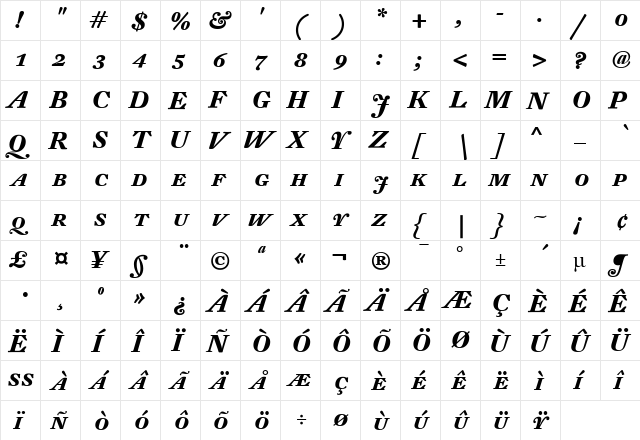
DTLFleischmannT ItalicBold Font Preview
DTLFleischmannT ItalicBold
Design Context for DTLFleischmannT Typeface
DTLFleischmannT is a composed and adaptable typeface that performs quietly and consistently across a wide range of design contexts. The slanted form adds forward momentum and visual energy. Its bold stroke weight gives it real presence on the page.